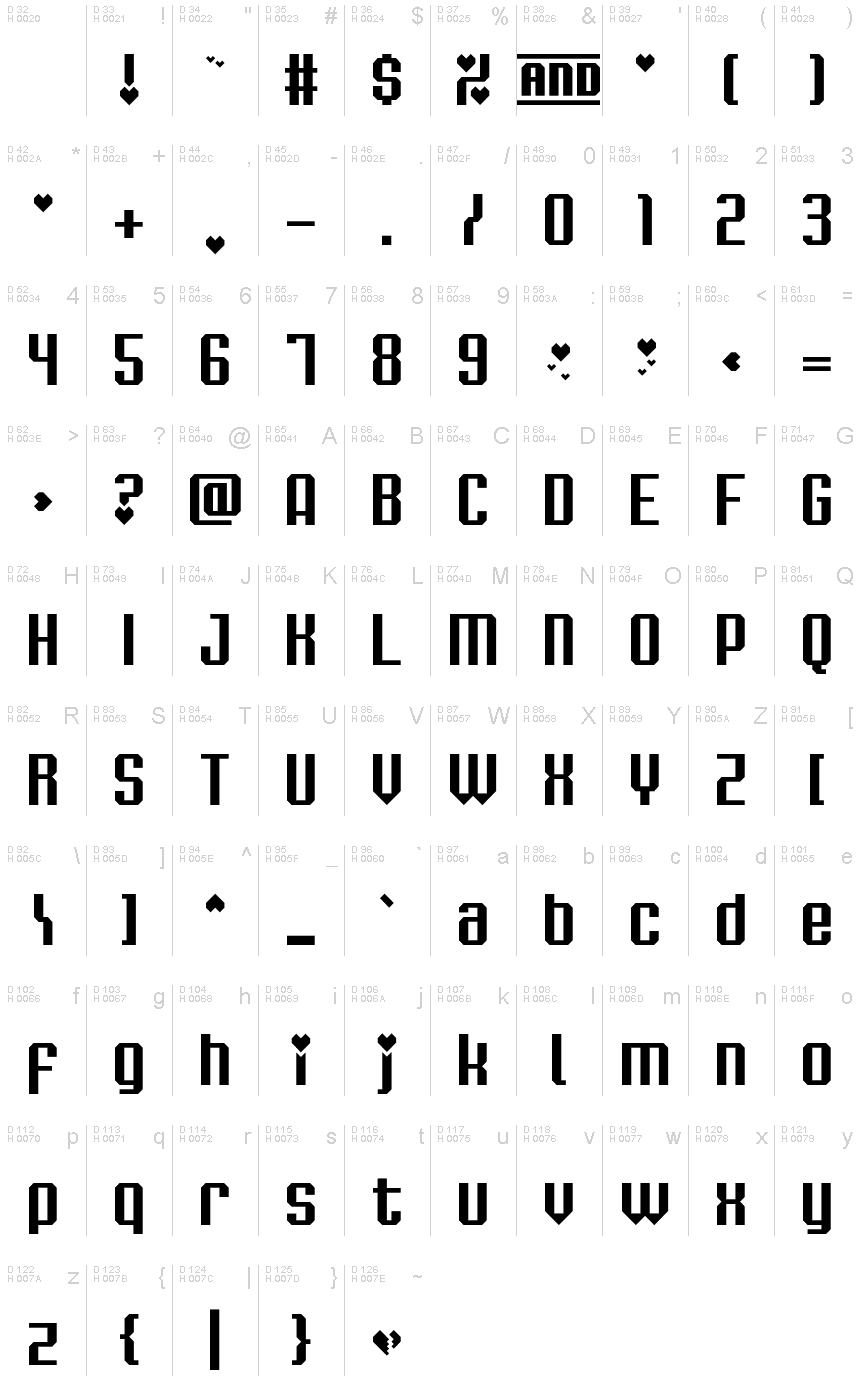
Chiptune Valentine Regular
Introducing Chiptune Valentine, a techno sans serif font designed by GameDevDan with narrow width. Perfect for giving your projects an 8-bit retro vibe, this font is great for game development, tech startups, and other creative projects.